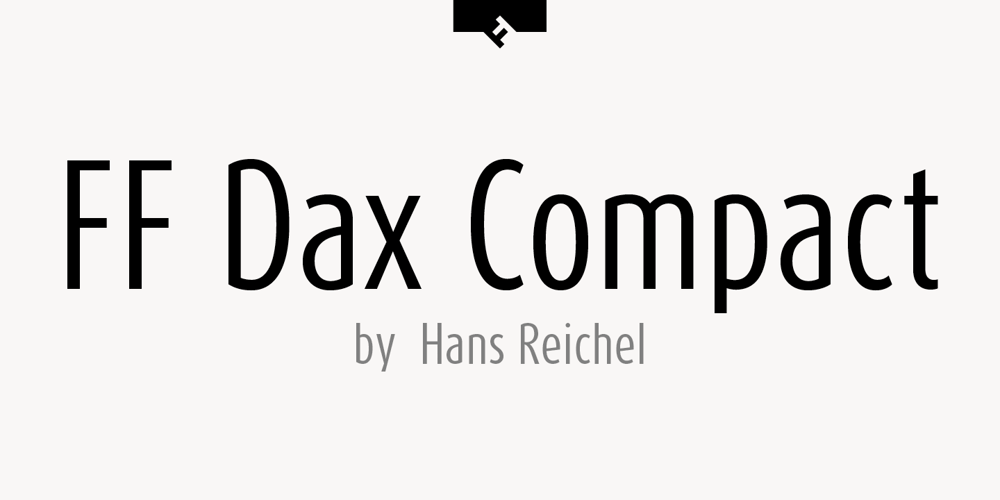
FF Dax Compact Font Family was designed by Hans Reichel and published by FontFont. FF Dax Compact contains 6 styles and family package options. German type designer Hans Reichel created this sans FontFont in 2004. The family has 6 weights, ranging from Light to Black and is ideally suited for editorial and publishing and small text. FF Dax Compact provides advanced typographical support with features such as ligatures, alternate characters, case-sensitive forms, fractions, super- and subscript characters, and stylistic alternates. It comes with a complete range of figure set options – oldstyle and lining figures, each in tabular and proportional widths. This FontFont is a member of the FF Dax super family, which also includes FF Dax and FF Daxline.